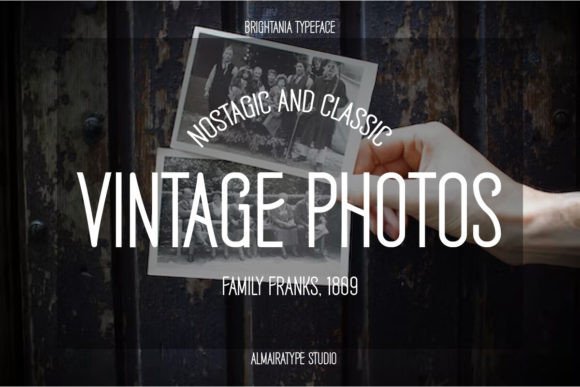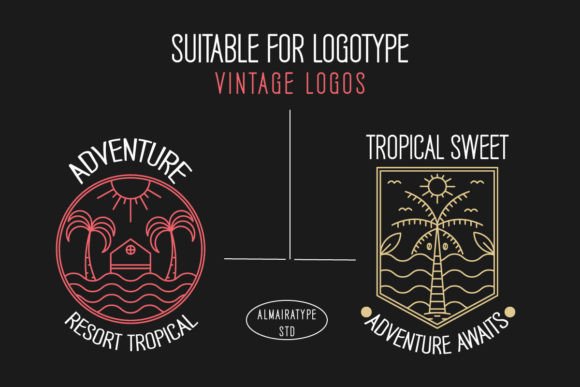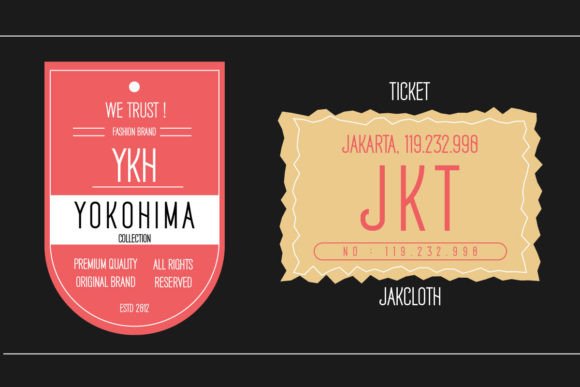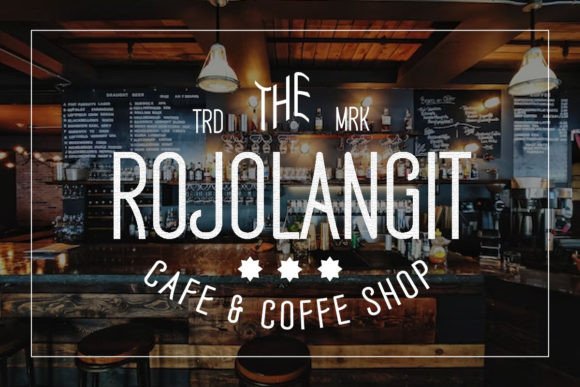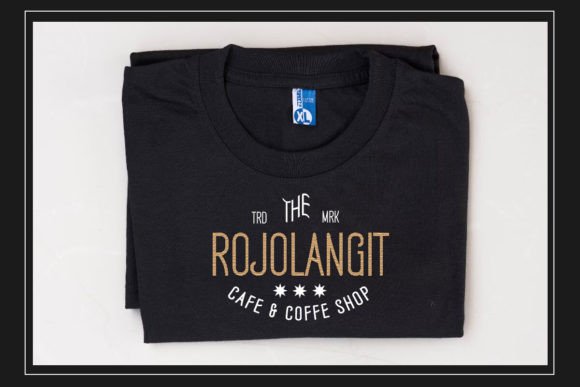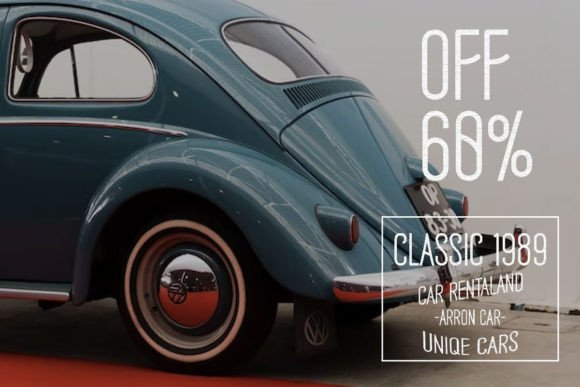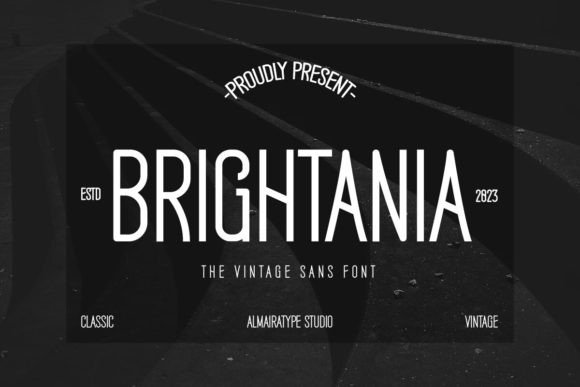
The Brightania Font: A Vintage-Modern Gem for Creative Projects
I’ll never forget the time I was working on a branding project for a client’s craft business, and I just couldn’t find the right font. I scrolled through page after page of Google search results, but nothing seemed quite right. That was until I stumbled upon Brightania, a sans serif font with a vintage style that’s equal parts cool and modern. In this article, I’ll share my experience with Brightania, including what I love about it, some quirks to be aware of, and practical tips on how to use it in your creative projects.
An Honest Review of Brightania
So, what makes Brightania so special? Here are a few things that I absolutely love:
- ✨ Vintage vibe with a modern twist: Brightania has a unique blend of classic and contemporary styles that’s perfect for crafts, headlines, and branding.
- ✅ Highly versatile: This font is suitable for a wide range of creative projects, from print materials to digital designs, t-shirts, and more.
- 💡 Easy to read: Despite its vintage inspiration, Brightania is incredibly legible, even at smaller font sizes.
Of course, no font is perfect, and Brightania does have a few quirks to be aware of:
- 🤔 Limited language support: Brightania currently supports a limited number of languages, so if you need to create content in a specific language, be sure to check the font’s capabilities first.
- ⚠️ Some glyphs may require manual adjustment: Depending on your design software and the specific glyphs you’re using, you may need to make some manual adjustments to get the best results.
A Practical Guide to Using Brightania
Now that we’ve covered the basics, let’s dive into some practical tips on how to use Brightania in your creative projects. Here are a few examples:
The Story Behind Brightania
Brightania was designed by a team of creatives who wanted to create a font that would capture the essence of vintage style with a modern twist. Inspired by classic sans serif fonts, Brightania combines clean lines and elegant curves to create a unique and versatile font.
| Font Name | Brightania Font |
| Author | Almairatype Studio |
| What is Brightania? | Brightania is a sans serif font with a vintage style and a modern twist. |
| What can I use Brightania for? | Brightania is perfect for crafts, headlines, branding, business, print, t-shirts, apparel, Cricut, silhouettes, and other creative projects. |
| Is Brightania easy to read? | Yes, Brightania is highly legible, even at smaller font sizes. |